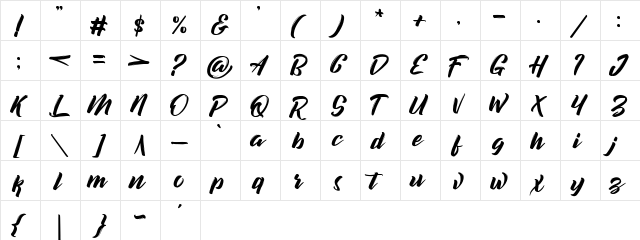
decalled script Regular
Design Context for decalled script Typeface
decalled script brings a calligraphic fluidity to the page — its connecting strokes and expressive curves give it an unmistakably human quality.
Font Pairing: Combine decalled script with a simple geometric sans for maximum contrast — the tension between flowing curves and clean structure is a classic typographic pairing.
Pro Tip: Use decalled script for short runs of text — names, titles, or taglines. Extended body copy in script faces tires the eye quickly.